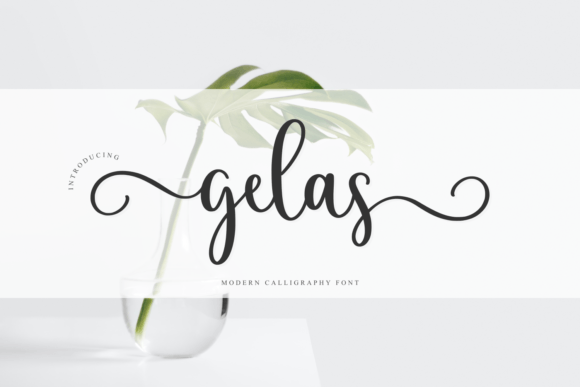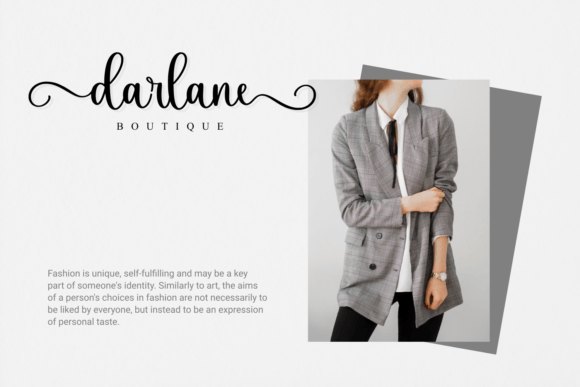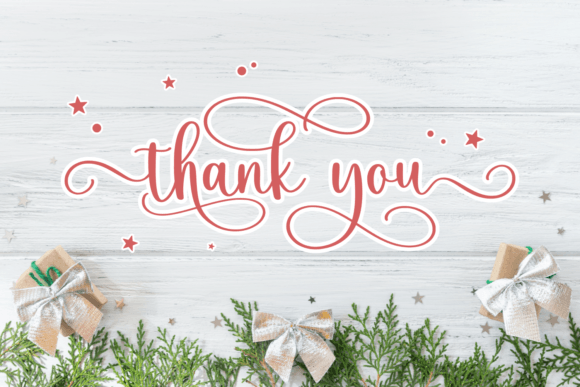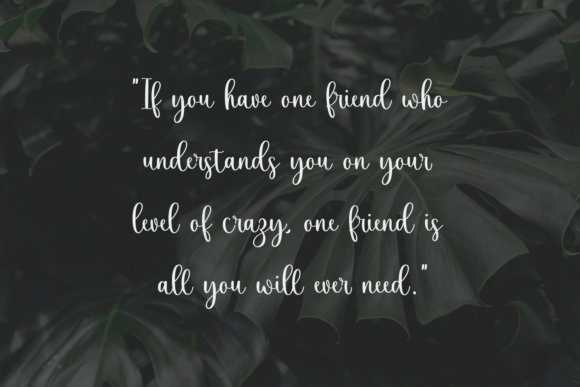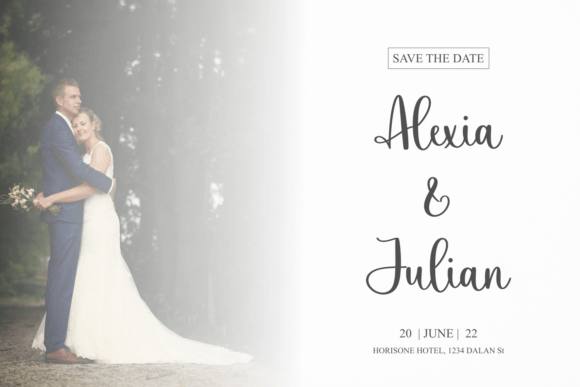
Gelas Font
About Gelas Font
Gelas Font is a sweet handwritten typeface featuring charming curly swash lines that add a playful and elegant flair to your designs. Whether you’re creating logos, labels, branding materials, invitations, websites, or inspirational quotes, Gelas enhances your projects with a unique and eye-catching style that makes them truly stand out.
Playful Curly Swash Design
Gelas stands out with its curly swashes and flowing letterforms, giving your work a lively yet sophisticated personality. The font combines warmth and elegance, making it suitable for a wide range of creative uses, from casual branding to formal invitations.
Ideal Uses for Gelas Font
Gelas works wonderfully in various creative projects, including:
• Logos and brand labels
• Wedding and event invitations
• Social media graphics and websites
• Inspirational quotes and posters
• Product packaging and merchandise
Its playful yet refined style adds charm and character to any design.
• Sweet, curly swash letterforms
Add Charm and Elegance to Your Designs
Typography helps set your design’s mood. Gelas adds a warm, playful, and elegant tone, making your projects memorable and inviting. Whether you’re working on branding or invitations, this font brings personality and style.
In summary, Gelas Font is a sweet and curly handwritten script perfect for logos, branding, invitations, and more. Its playful swashes and charming style help your designs shine and stand out. Add Gelas to your font collection for a unique creative touch.